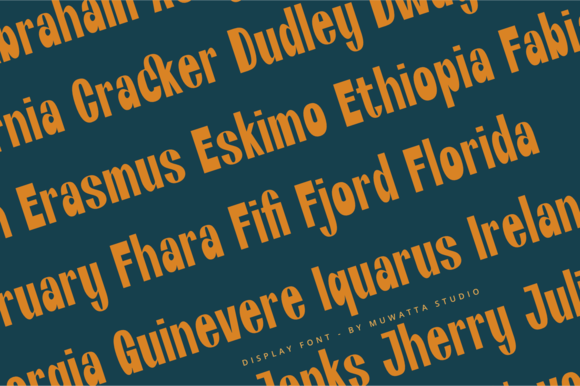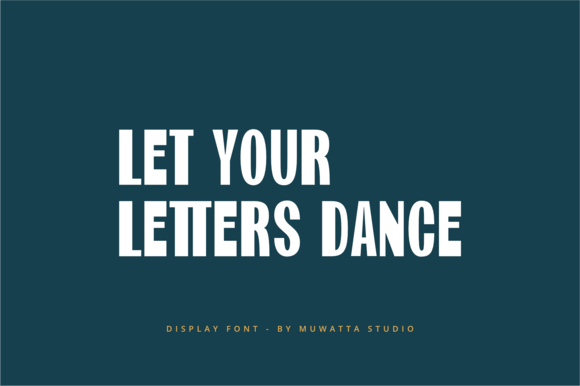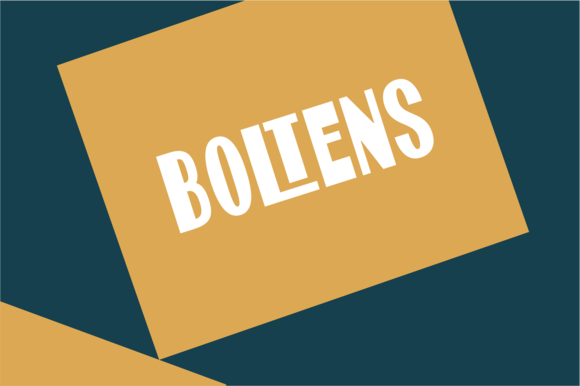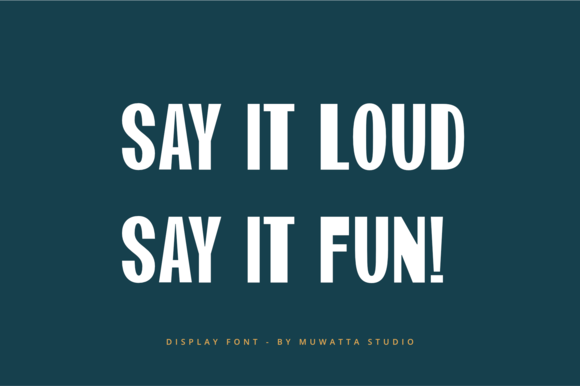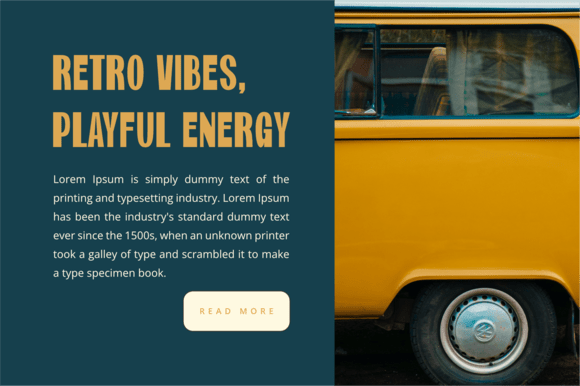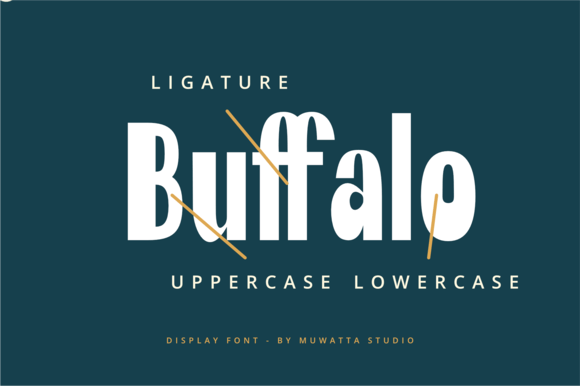
Unleashing Your Design Potential with the Bold Boltens Font
Have you ever stared at a blank canvas, desperately searching for the perfect font to bring your design to life? The thrill of the hunt is exhilarating, and the right font can make all the difference between a mediocre design and a masterpiece. For designers seeking a bold, modern, and professional look, Boltens Font is the ultimate game-changer.
Boltens Font is a sans serif font designed to make a statement, with solid letterforms, bold lines, and strong geometric structures that exude confidence and sophistication. Whether you’re crafting a logo, creating a brochure, or designing a website, Boltens Font is the perfect companion to help you achieve your creative vision.
As a valuable addition to any designer’s toolkit, Boltens Font offers unparalleled flexibility and versatility, making it an essential asset for any design project. With Boltens Font, you can unleash your creativity and take your designs to the next level.
Boltens Font Key Features
- Font Style: Boltens is a sans-serif font with a modern and sleek design.
- Character Set: Boltens Font includes a comprehensive character set, covering Latin, Cyrillic, and Greek alphabets, as well as a wide range of punctuation and symbols.
- Resolution: Boltens Font is designed to be scalable, making it suitable for use at various resolutions, including high-resolution displays.
- Unique Characteristics: Boltens Font features a unique blend of geometric and rounded shapes, giving it a distinctive and modern look.
Boltens Font Review
As a designer, I’ve had the chance to work with a wide range of fonts, and Boltens Font is one of the more interesting ones I’ve come across.
- Unique Character: Boltens Font has a distinct, playful feel to it that’s perfect for projects where you want to stand out.
- Legibility: Despite its quirky design, Boltens Font is surprisingly easy to read, even at smaller font sizes.
- Limited Font Styles: Boltens Font only comes in a few font weights, which can make it difficult to create a cohesive visual identity.
- Not Ideal for Large Blocks of Text: Due to its unique design, Boltens Font can start to feel overwhelming when used for large blocks of text.
Overall, Boltens Font is a great choice for designers who want to add a bit of personality to their projects. While it may not be the most versatile font out there, it’s definitely worth considering for the right project.
Tips for Getting the Most Out of Boltens Font
For optimal results, use Boltens Font in bold or italic styles to add emphasis to your text. You can also pair it with other fonts to create a unique and eye-catching design. Experiment with different font sizes and colors to find the perfect balance for your project.
Boltens Font is ideal for use in creative projects, such as graphic design, advertising, and digital art. It’s also great for use in titles, headings, and captions to add a touch of elegance and sophistication.
Q: What is the recommended font size for optimal readability with Boltens Font?
The recommended font size for optimal readability with Boltens Font varies depending on the application and intended use. As a general guideline, use font sizes between 10pt and 24pt for body text, and 36pt to 48pt for headings. Experiment with different font sizes to find the optimal balance for your specific design needs.